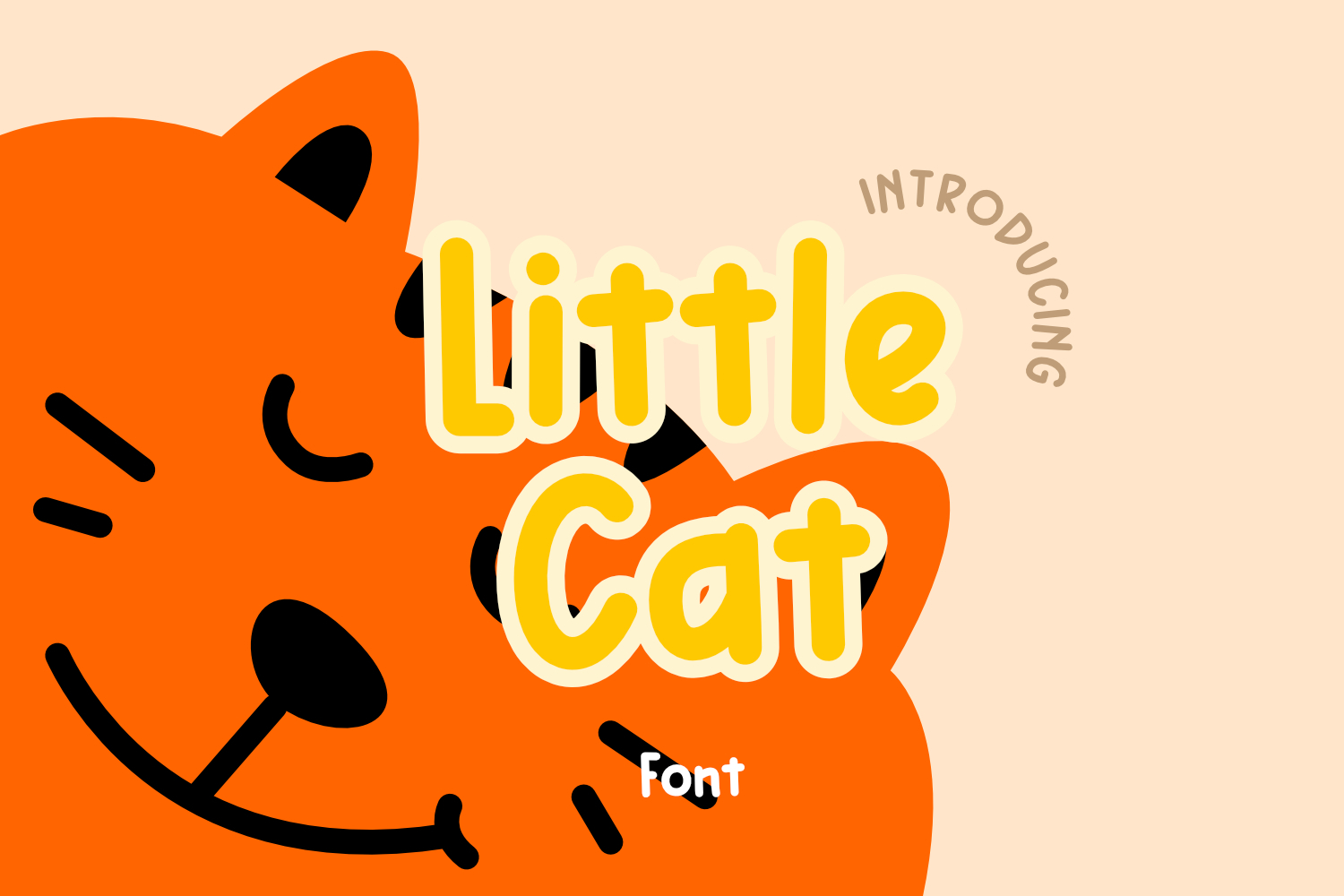
Little Cat Playful Monoline Craft Font
Little Cat
Meet Little Cat, a delightfully cute, cheerful, and energetic outline font! Inspired by the playful and adorable nature of kittens, this font is handcrafted to bring a splash of joy and whimsy to all your creative projects.